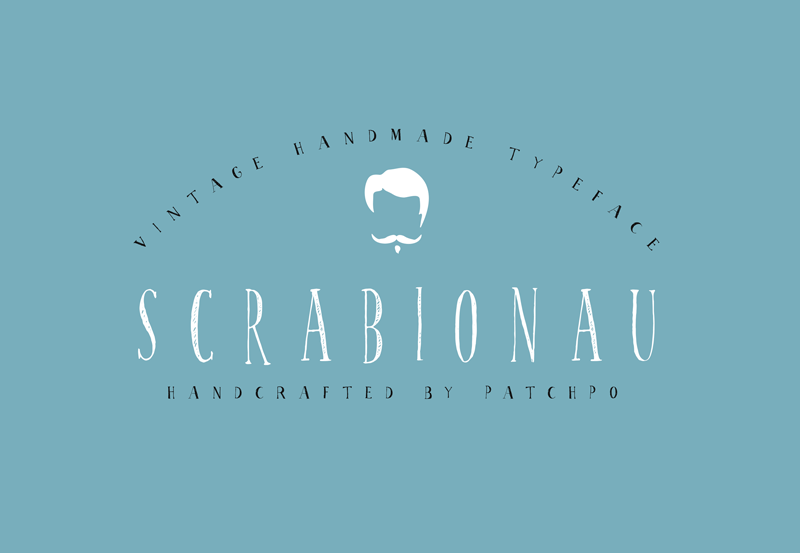
Scrabionau is a condensed handwritten serif. Spontaneous flare and imperfect flow gives a lovely natural feel. Great for invitations such as greeting cards, branding materials, business cards, quotes, posters, and more! THIS IS THE DEMO, BARE BONES, VERSION OF SCRABIONAU. IT IS FREE FOR PERSONAL USE ONLY. If you are going to use it commercially, buy the full version, which comes with kerning, embedding rights, all glyphs (including the 8) and extras from my shop: https://www.creativefabrica.com/product/scrabionau/ref/2143/ patchpo.com Copyright 2016 PatchpoGraphics All Rights Reserved |